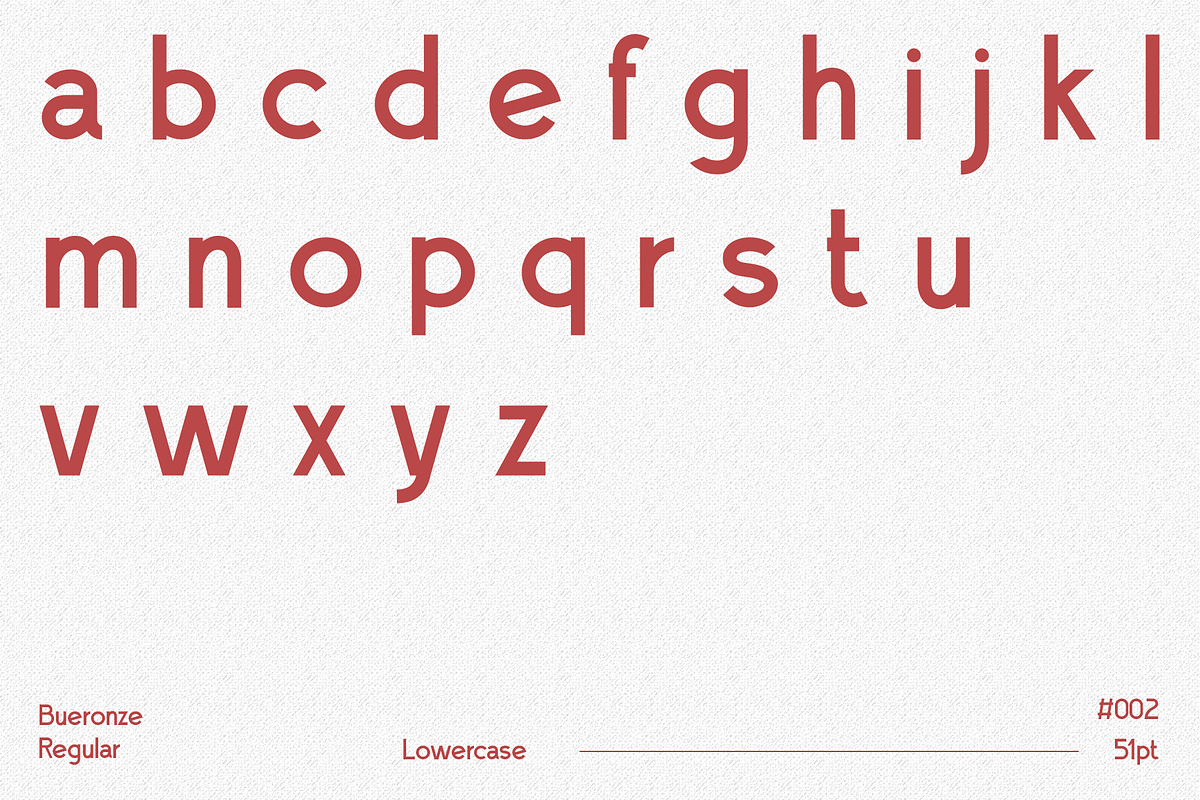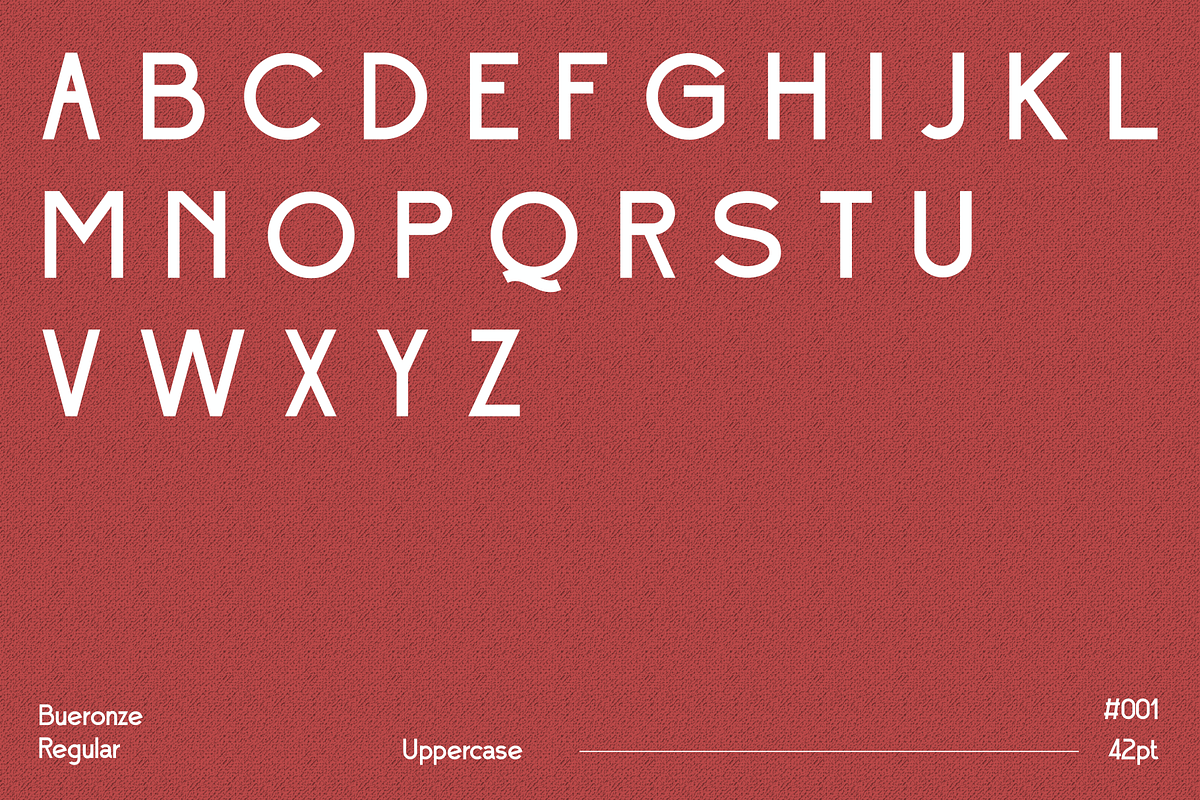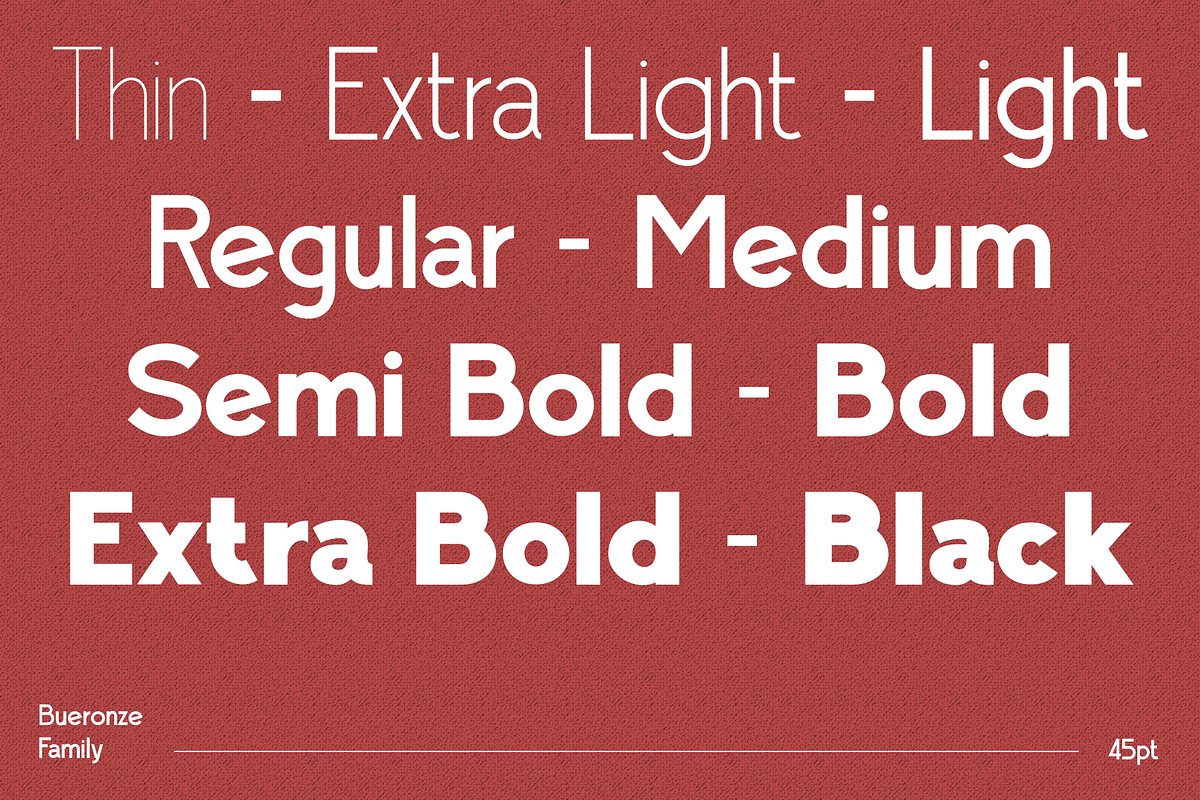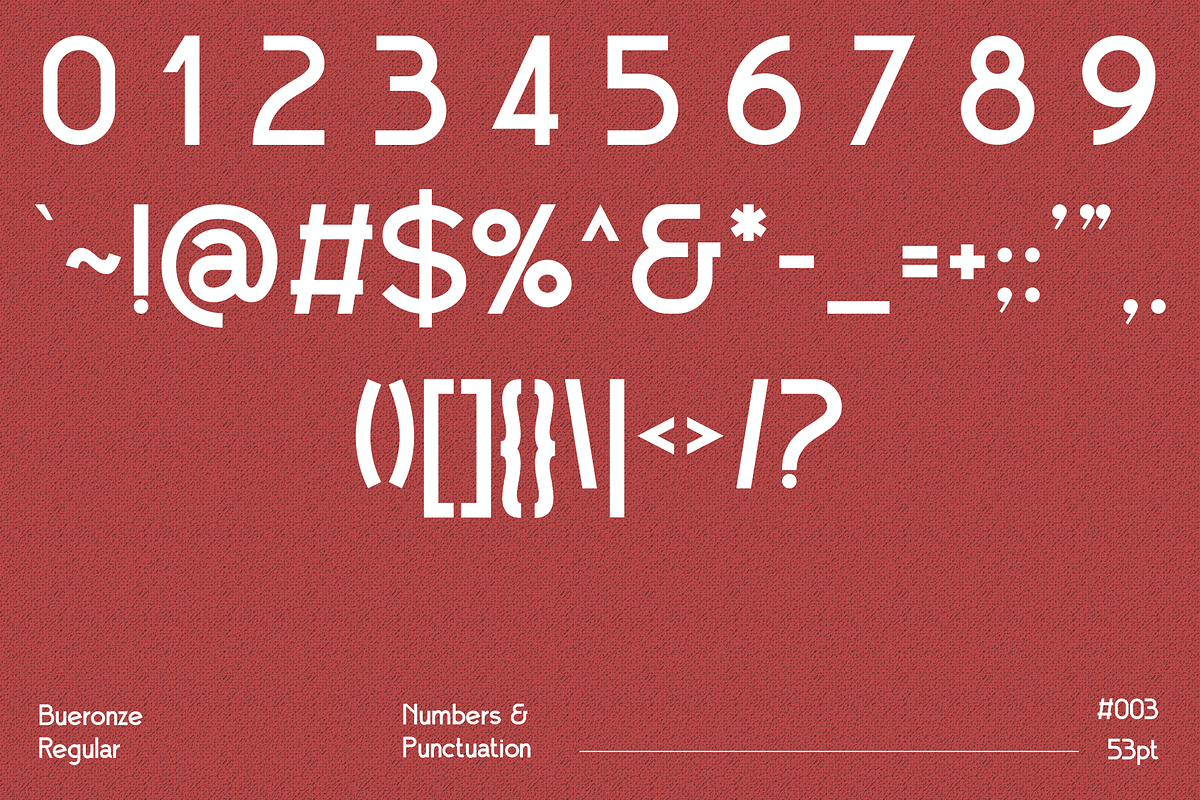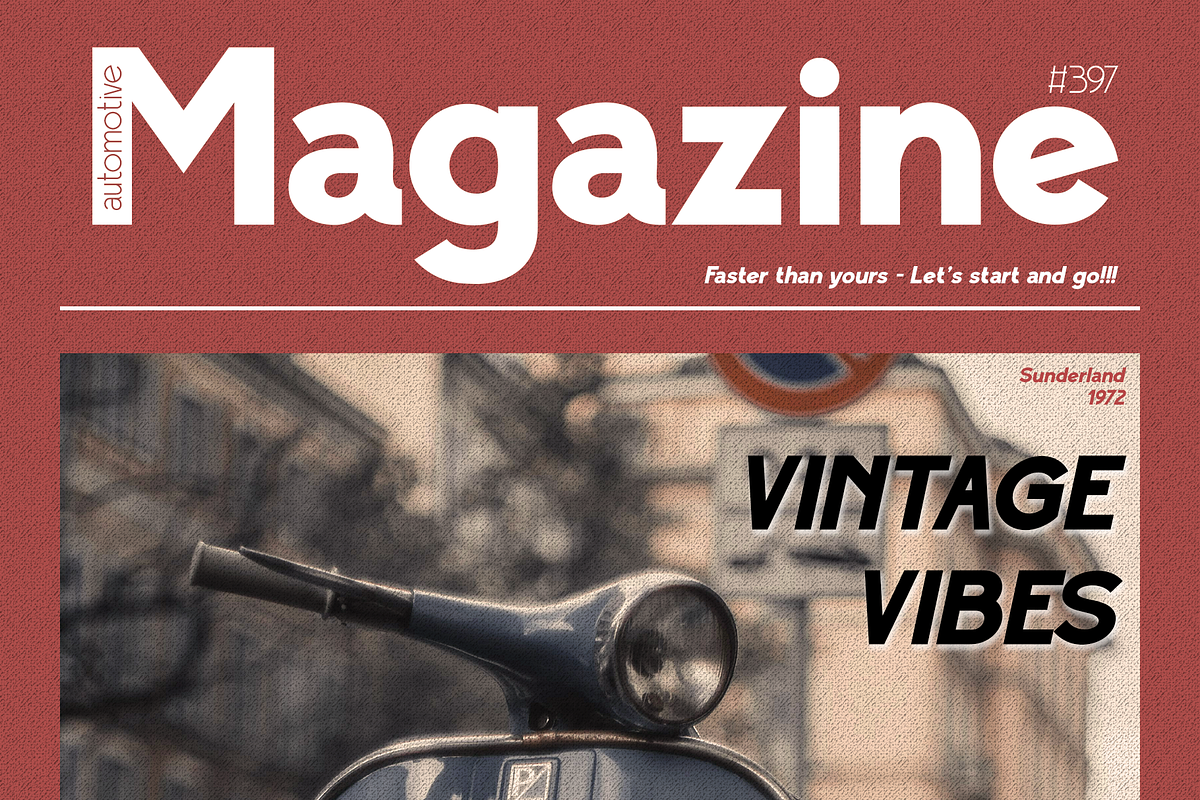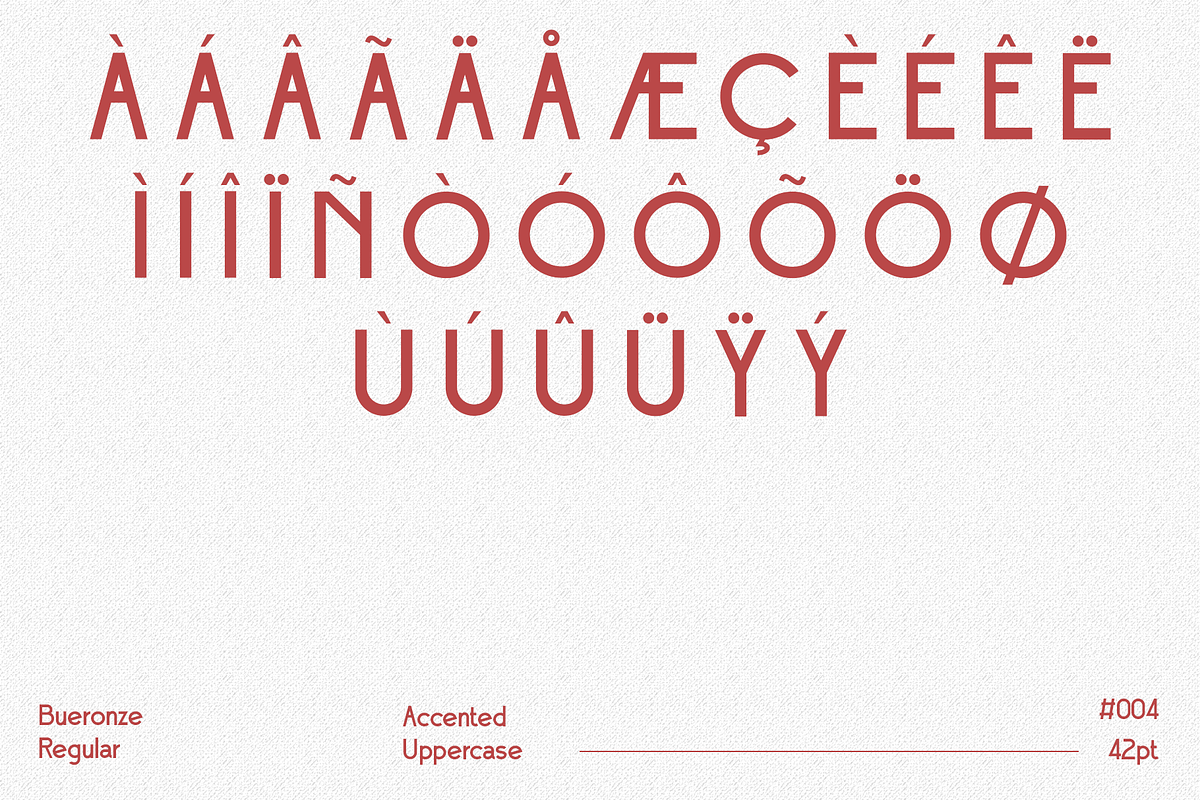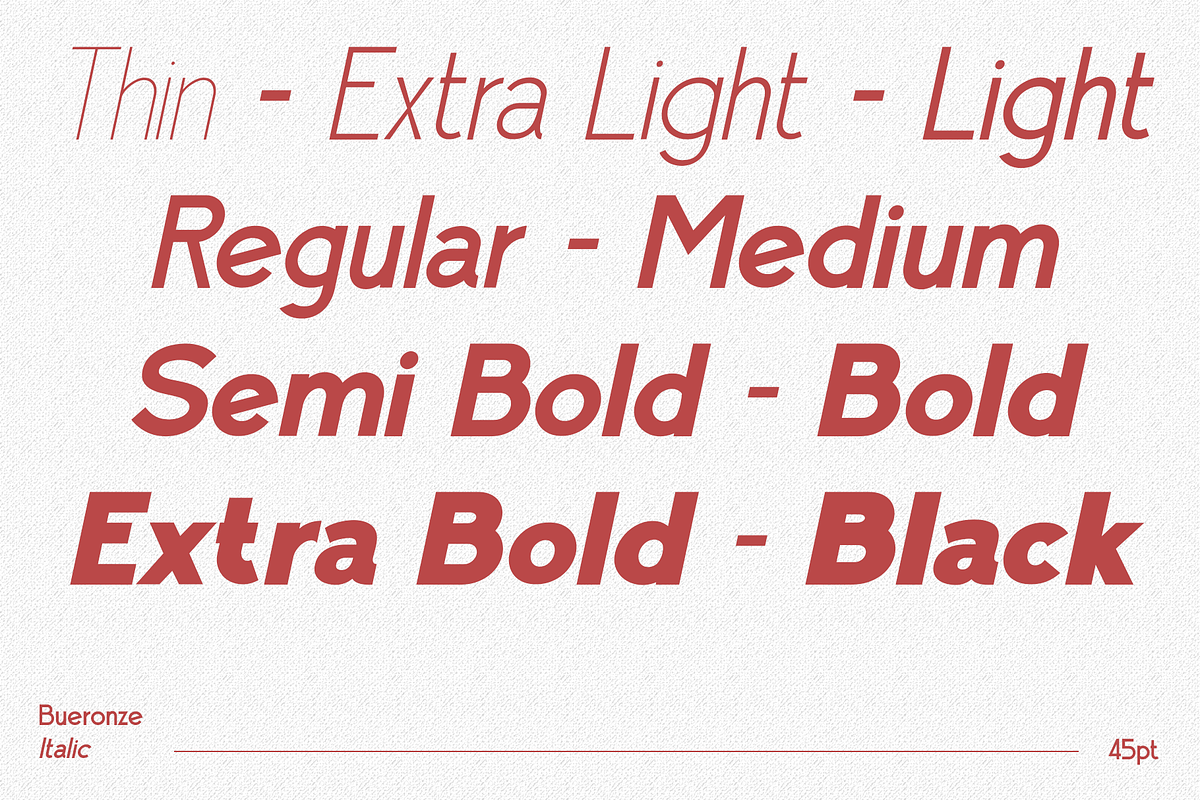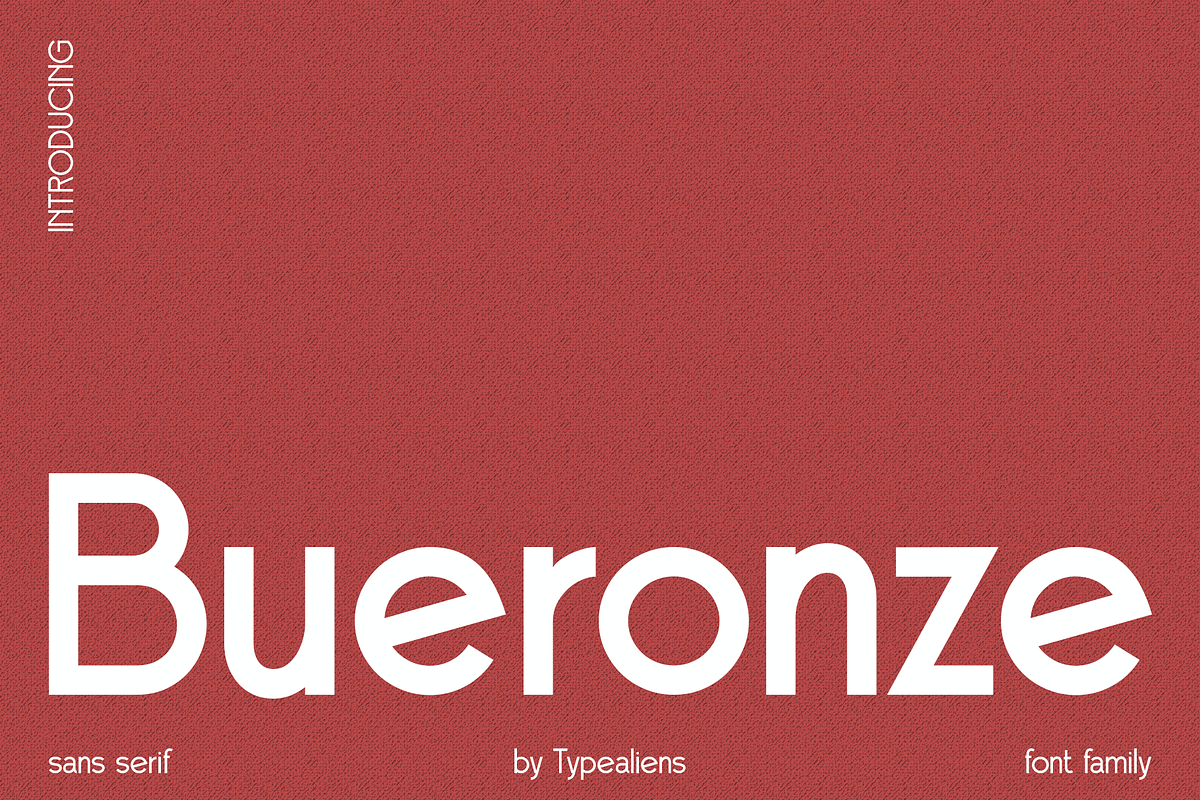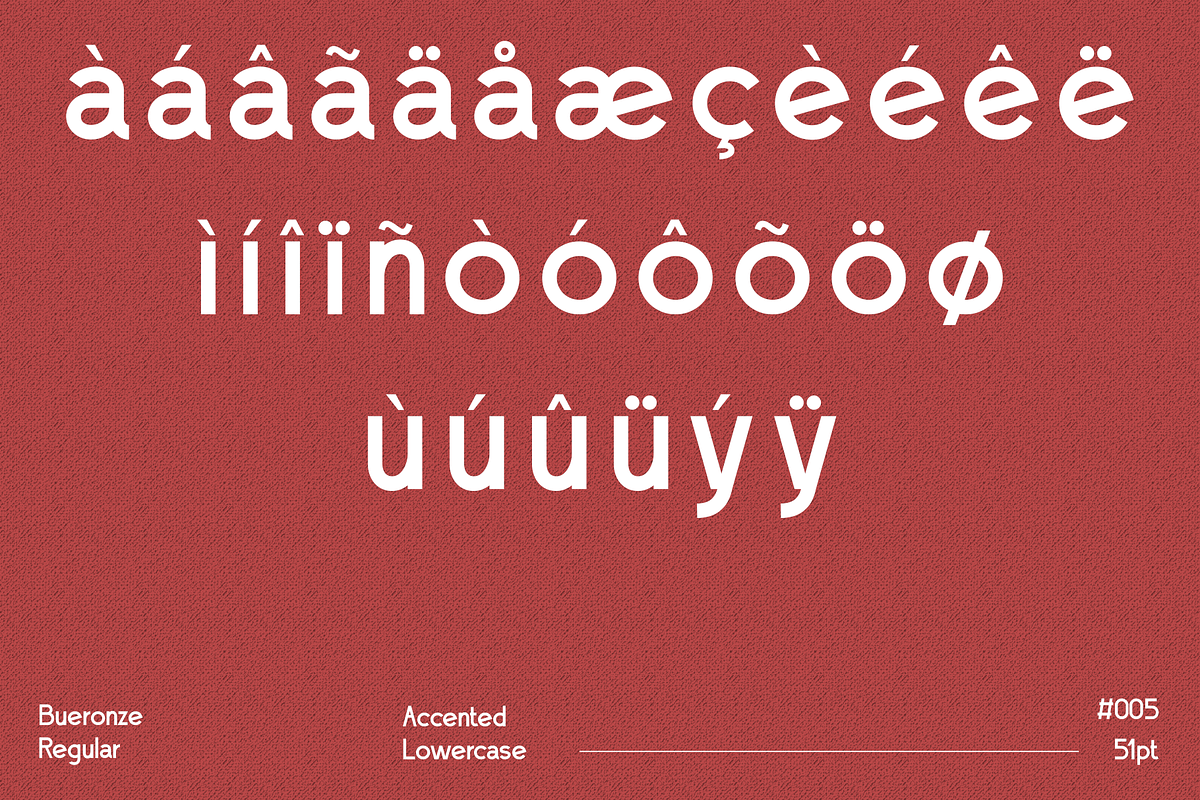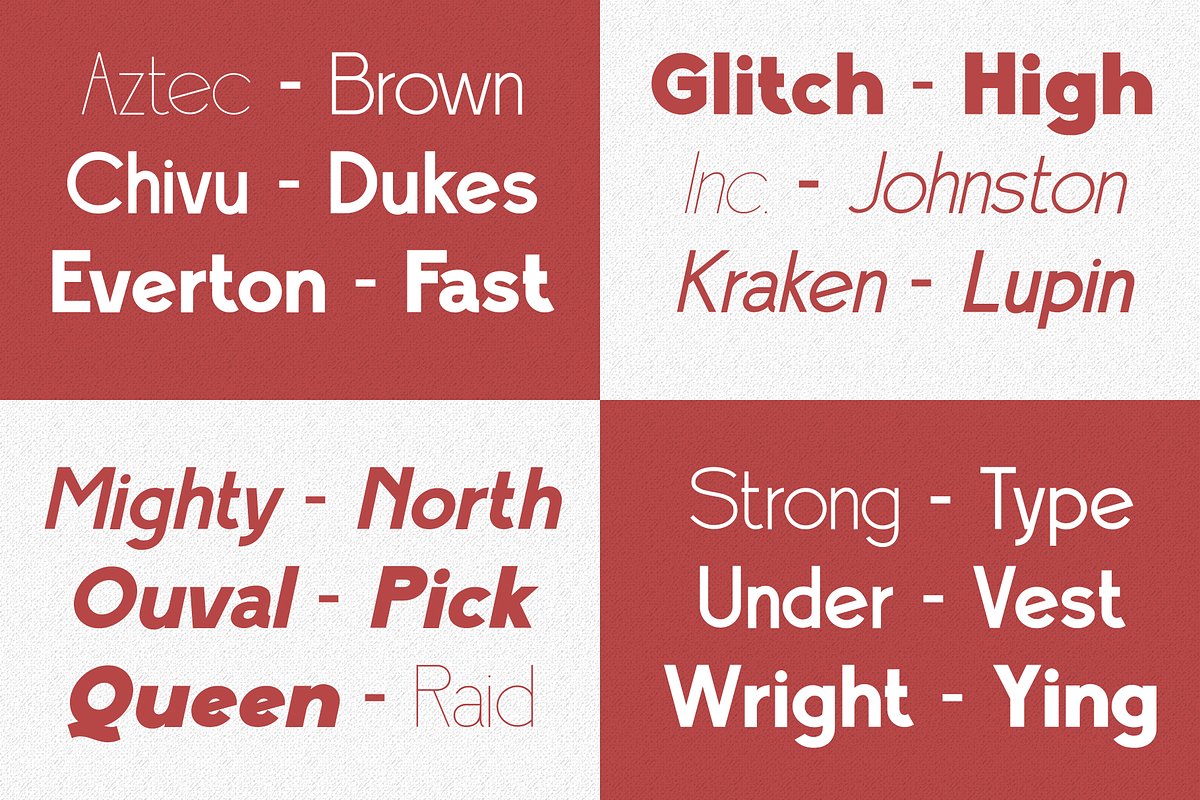
Bueronze for Corporate Branding
Bueronze is a variable sans serif font with over 15 variations. This font is perfect for modern branding, body text, and articles. Like most sans serifs, Bueronze has a clean, easy-to-read body. You can adjust the letter thickness, from Bueronze Thin to Bueronze Black, and it also comes with italics.
This font is also suitable for text on social media, both digital and physical.